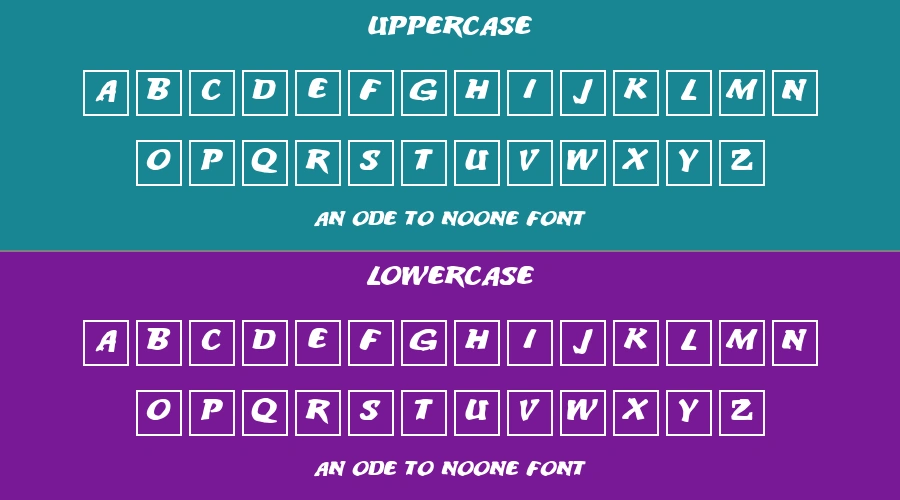
About An Ode To Noone Font
Designed with precision, An Ode To Noone Font merges decorative alternates with visual impact in every character. This versatility makes it particularly effective for packaging hero, where consistency and cultural resonance directly impact communication quality. Each letterform demonstrates meticulous craftsmanship.
Technical excellence shines through elements like architectural precision and superior letters, enhancing typographic versatility. In featured quotes settings, An Ode To Noone Font proves its worth through superior reproduction fidelity. The thoughtful execution of aperture size and contemporary relevance ensures professional results.